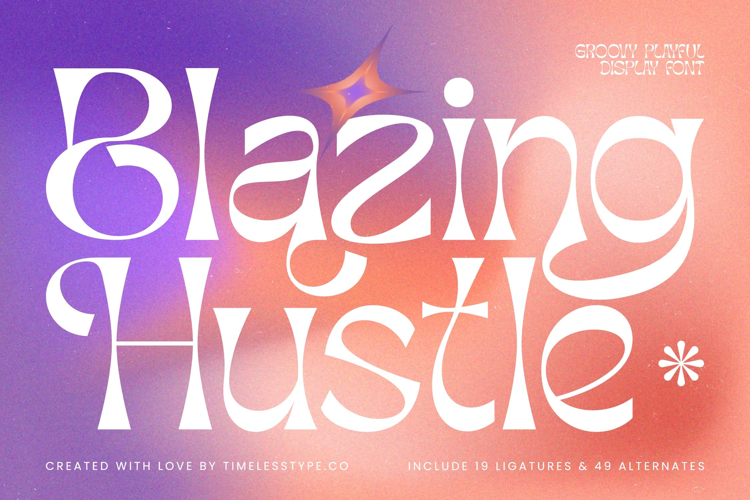
Blazing Hustle - Groovy Playful Display
Blazing Hustle Italic
Blazing Hustle
Blazing Hustle - Groovy Playful Display
Blazing Hustle is a groovy playful display font that radiates creativity, energy, and bold artistic flair. With its exaggerated curves, dynamic strokes, and distinctive alternates, this typeface brings a retro yet modern vibe that is perfect for vibrant, expressive design projects. Equipped with 19 ligatures and 49 alternates, Blazing Hustle gives designers countless possibilities to create unique, eye-catching typography that feels fresh and adventurous.
This font thrives in headline typography, where its bold and groovy character makes an instant impact across posters, banners, and editorial layouts. In branding and logo design, Blazing Hustle communicates originality and individuality, making it a strong choice for creative studios, lifestyle brands, music projects, and businesses that want to showcase personality and flair. Its playful forms also make it excellent for packaging design, particularly for beverages, fashion, and artisanal goods where bold type enhances shelf appeal.